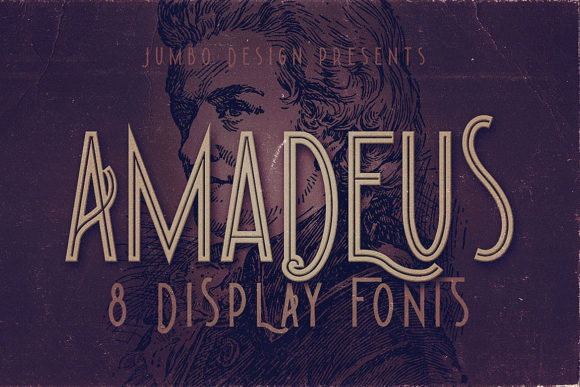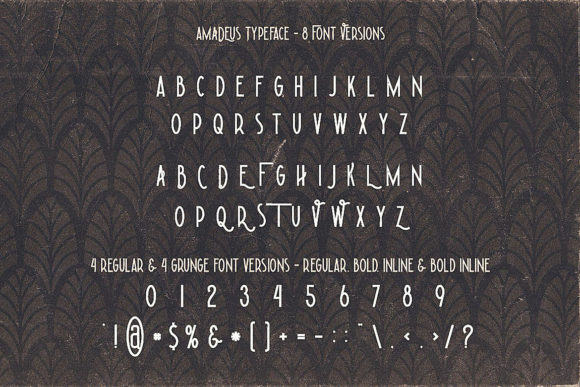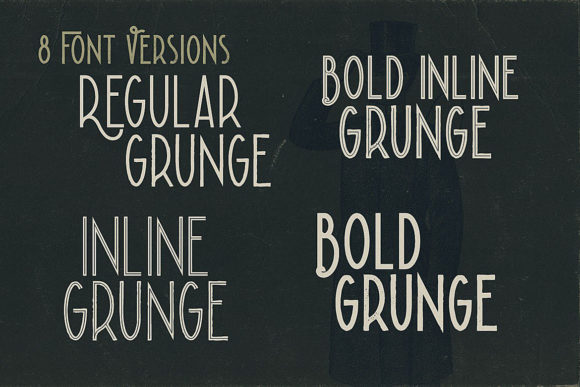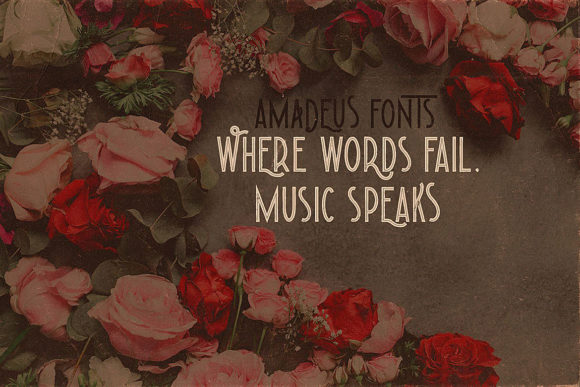
Amadeus Font: Unique Vintage Display Font for Logo Design & More!
About the Amadeus Font
The wait is over! The incredible Amadeus Font is now available for your design toolkit. The Amadeus is an unique and vintage display font. It includes 8 unique styles which gives you the opportunity to create multiple designs with just this one download.
Amadeus excels as a display font for headlines, posters, and branding projects requiring a vintage aesthetic. Its strong character makes it ideal for short, impactful statements, logos, or packaging design where visual impact is paramount. However, its ornate details make it unsuitable for body text or UI elements; legibility suffers at smaller sizes and in extended use.
The Amadeus font possesses a bold, confident personality. It would suit brands projecting a classic yet assertive image, perhaps in the fields of luxury goods, spirits, or high-end entertainment.
Pairing Amadeus with a clean sans-serif like Helvetica for body copy creates strong visual contrast. For a more vintage feel, consider pairing it with a complementary serif font such as Garamond or Didot. A playful script font could also add a touch of elegance depending on the project’s requirements.
Amadeus Font Usage Examples
Amadeus Font Example